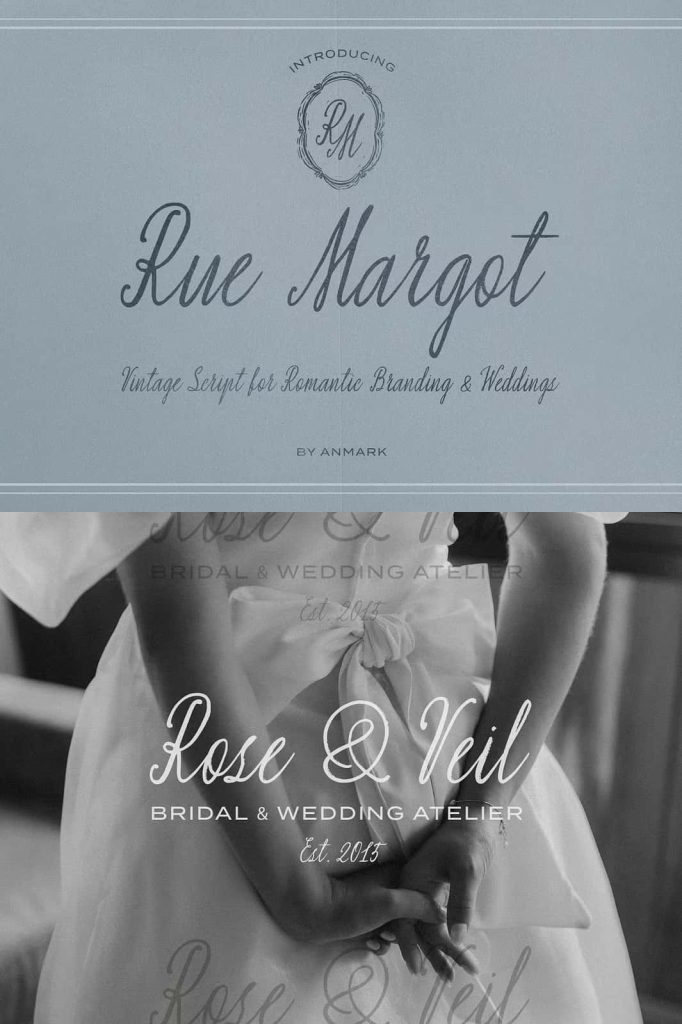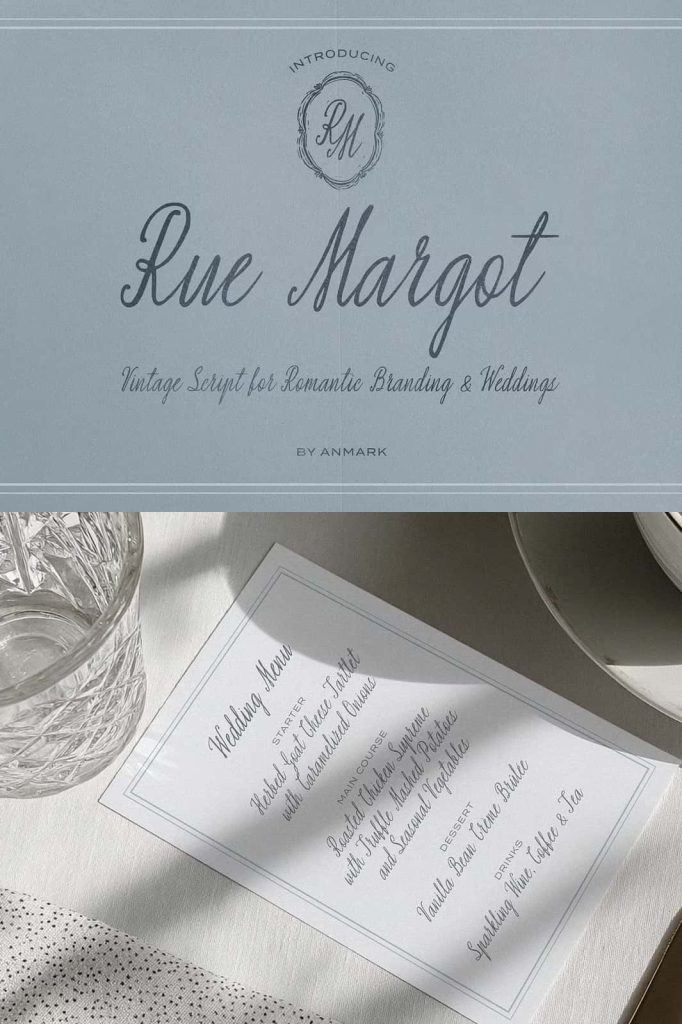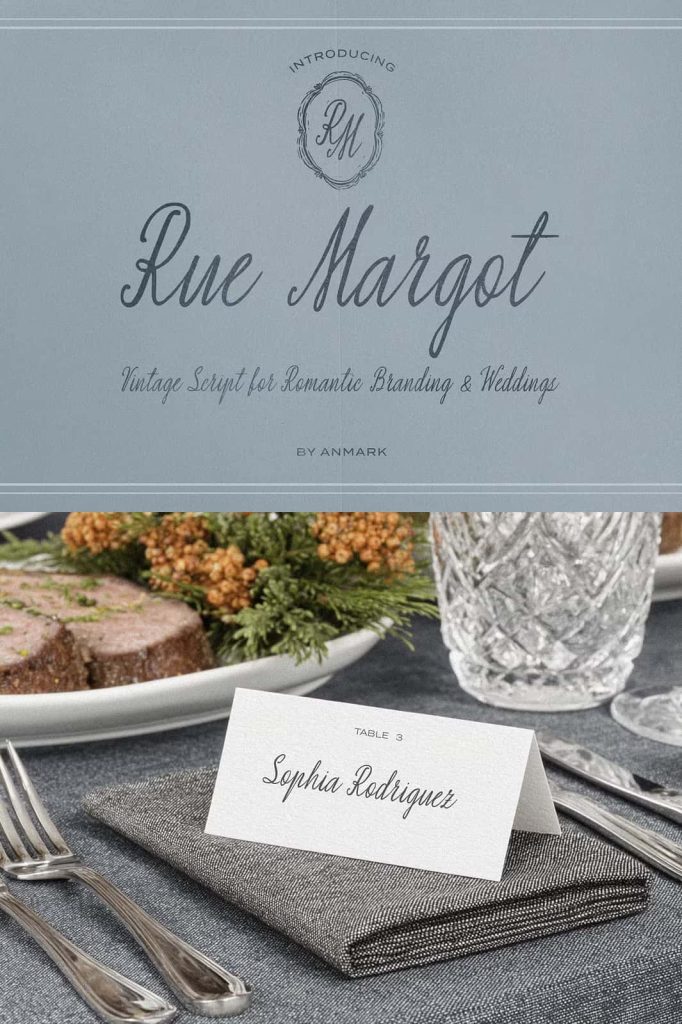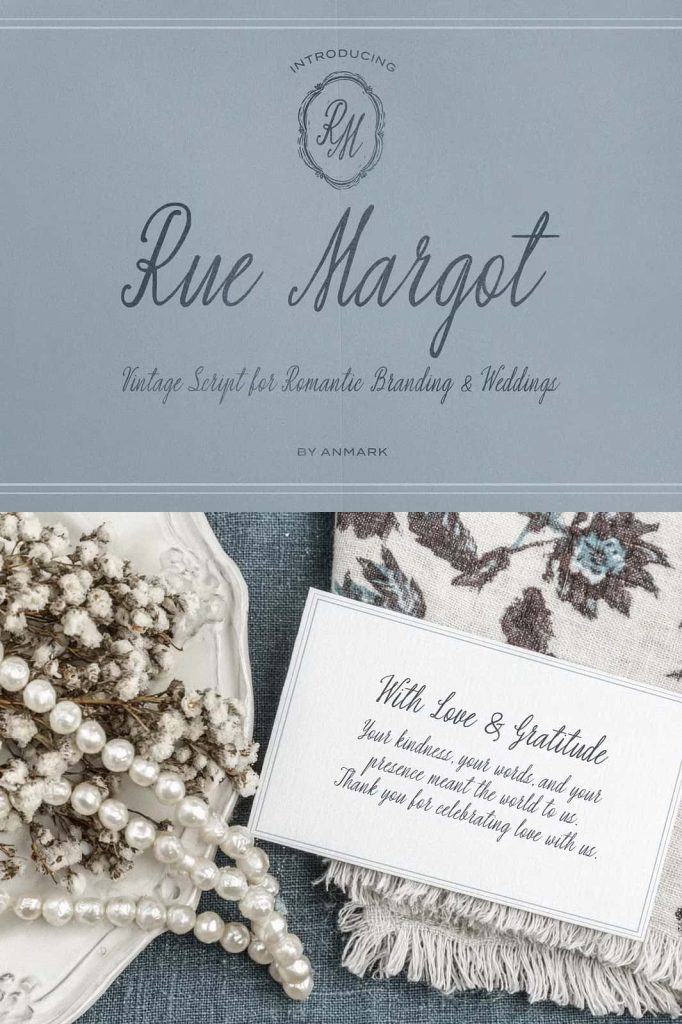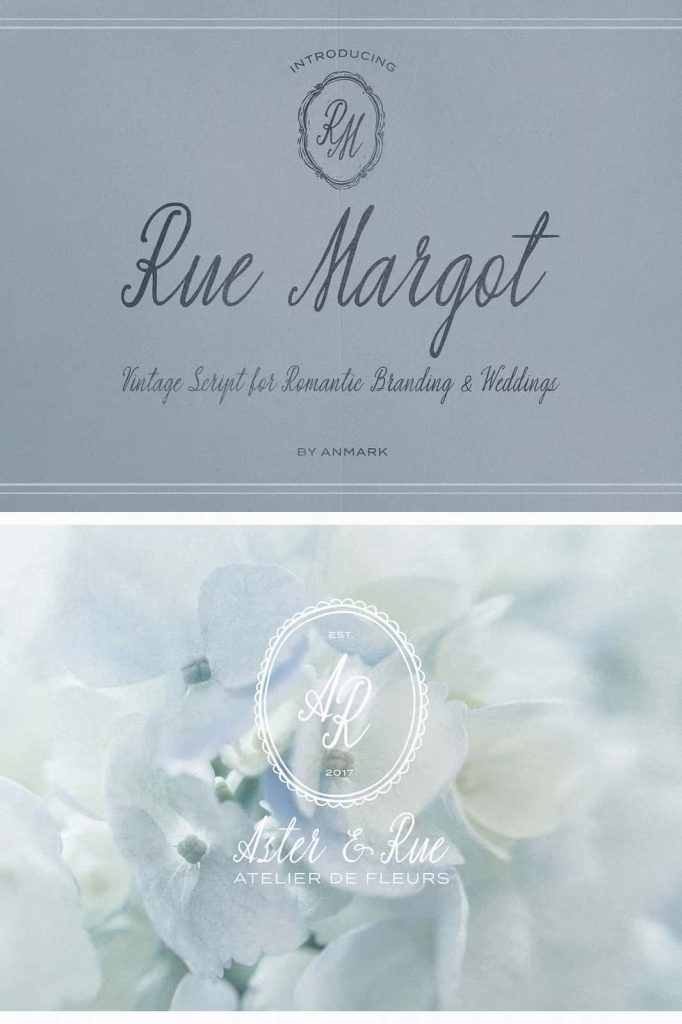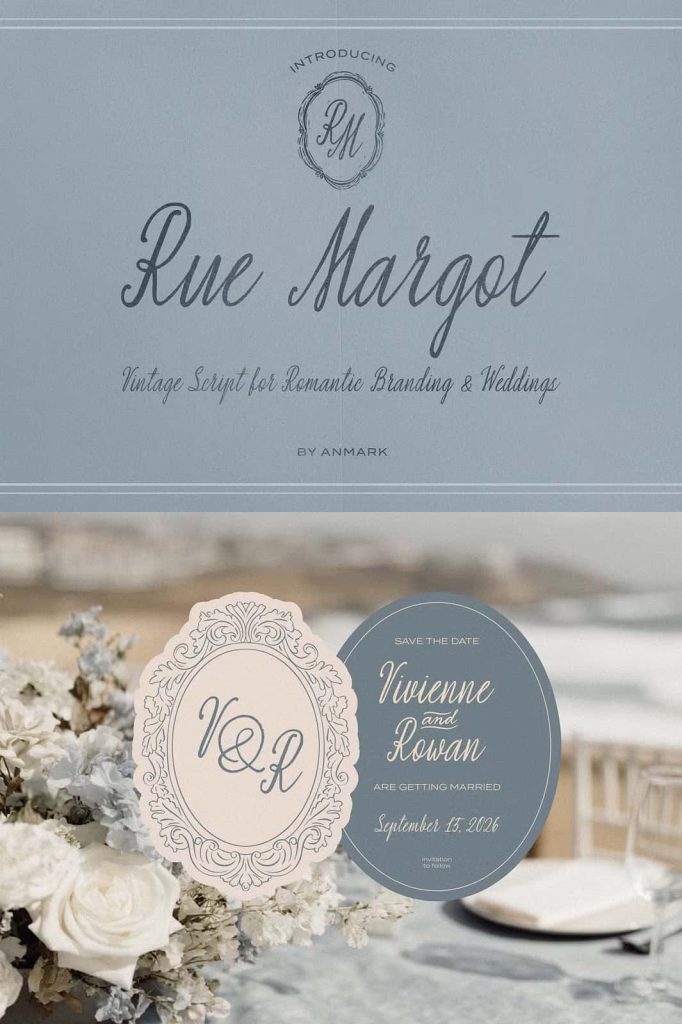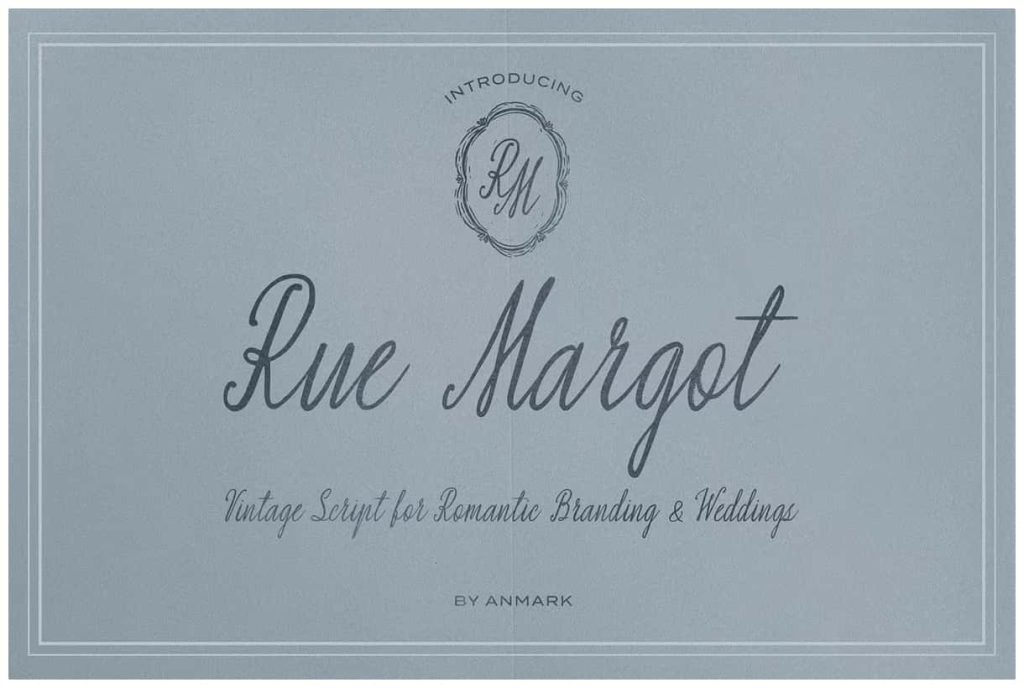
Rue Margot Elegant Wedding ScriptleastedSeptember 8, 2025Fonts Rue Margot is an elegant script font designed to bring a sense of vintage charm Download